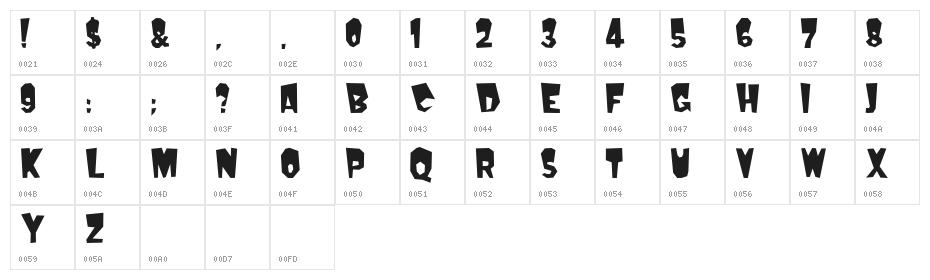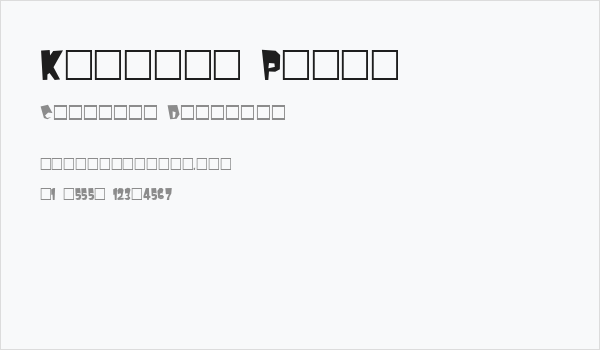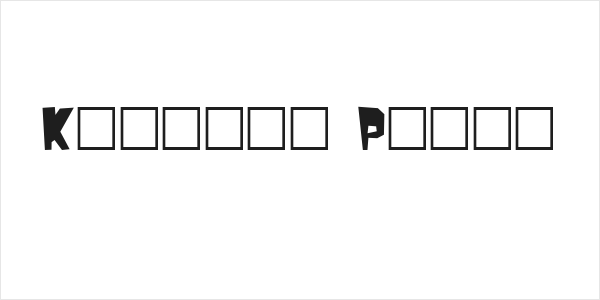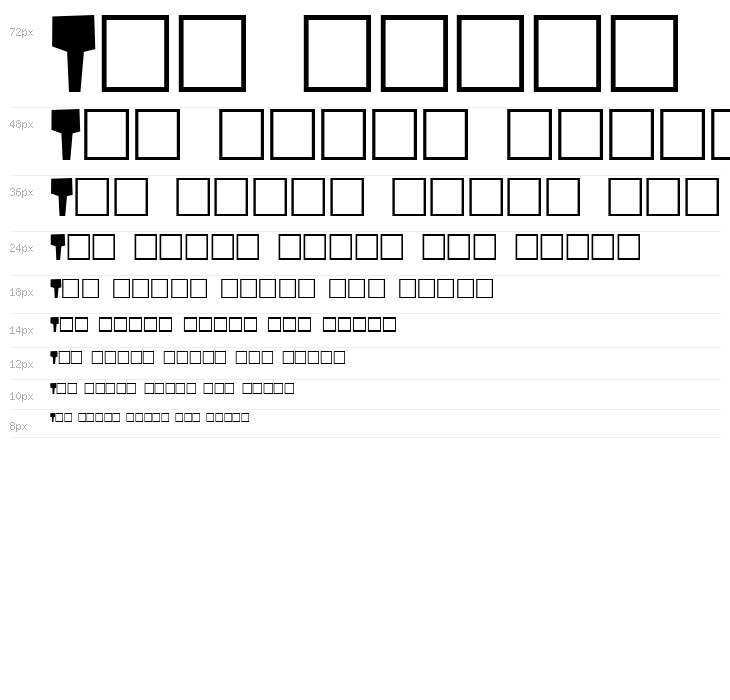
Kerouac Plain Font
Kerouac Plain Description
This font features a bold and dynamic style with a distinctly jagged and irregular form. The uppercase letters are characterized by sharp angles and uneven edges, giving them a rugged, hand-crafted appearance. The numbers and special characters follow this same aesthetic, maintaining a consistent visual theme throughout. The font's unique design makes it stand out, with each character appearing as if it has been cut from paper or carved from stone, lending a sense of movement and energy. This font is ideal for projects that require a bold statement or a touch of artistic flair.
Proposed ProjectsIdeal for posters, album covers, branding, and any creative project needing a bold, artistic touch.